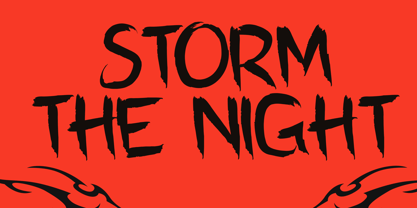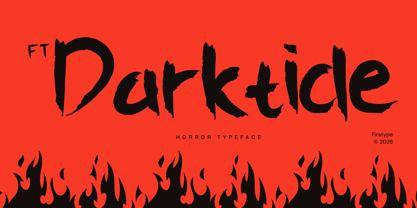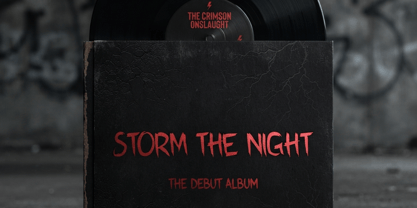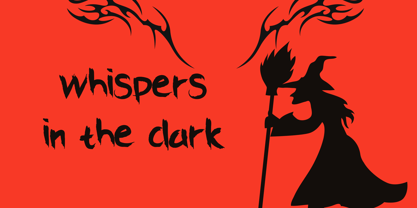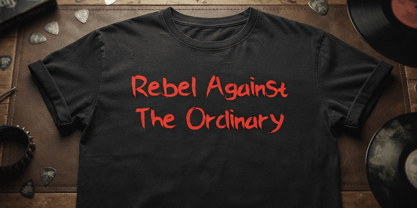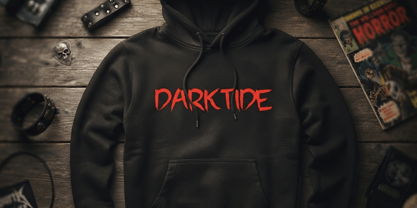
FT Darktide
FT Darktide is a brutal, high-impact horror typeface designed to evoke a grim and terrifying aesthetic. With its slashed, frantic brush strokes and unsettling structure, FT Darktide captures the raw, spine-chilling essence of horror culture, dark metal music, and Halloween-themed artistry. Whether you are creating movie titles, haunting book covers, extreme apparel, or heavy-hitting event posters, FT Darktide delivers a menacing visual presence that demands attention. Its jagged, blood-curdling texture infuses intense, dark energy into every headline.
✨ Key Features:
Horror Brush Aesthetic: Jagged, frantic, and slashed brush lines that evoke pure terror and chaos.
High-Impact Display: Engineered to command absolute attention on dark backgrounds, posters, and horror merchandise.
Professional Quality: Meticulously designed for sharp vector output and clean digital rendering.
Versatile Terror: Ideal for horror film titles, Halloween branding, metal music art, and edgy streetwear.